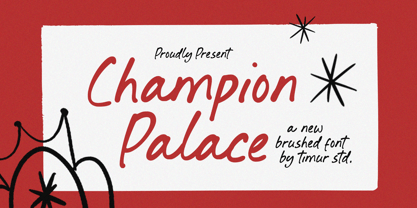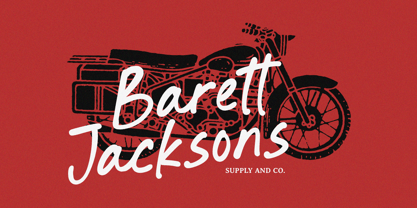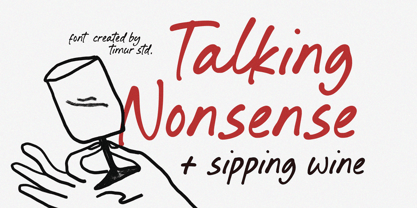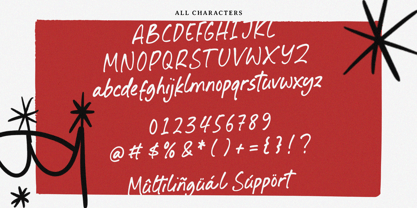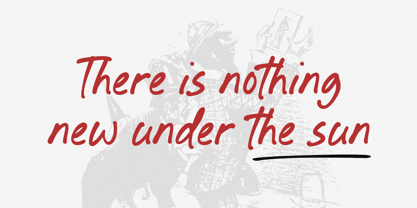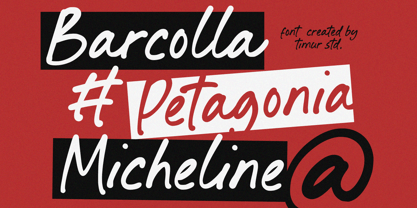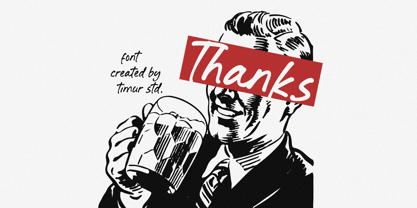
Champion Palace
The Champion Palace Font Family was designed by Wara Sigit Tri Pamungkas and published by Timurtype. Champion Palace contains 1 styles. More about this family
Champion Palace is a Brushed Font
Champion Palace is a bold and expressive brushed font that combines elegance with an urban edge. Featuring dynamic strokes and hand-painted textures, it’s perfect for logos, posters, branding, and any design that needs a strong, stylish impact.
Champion Palace Font also supports multilingualism